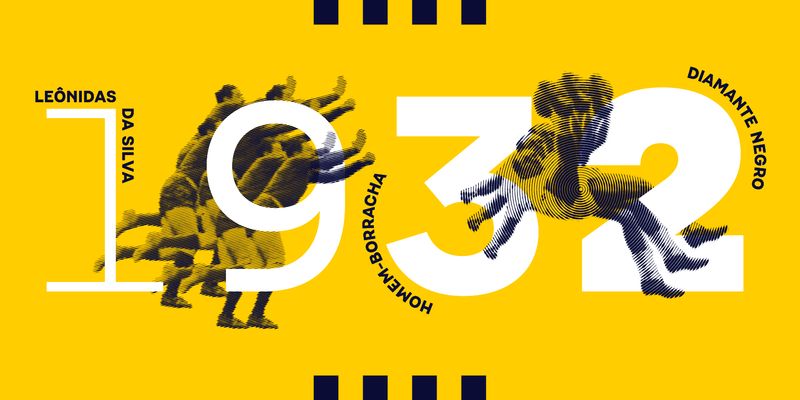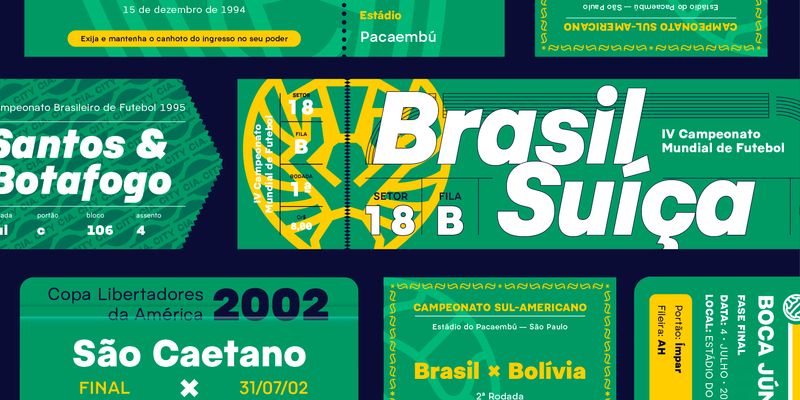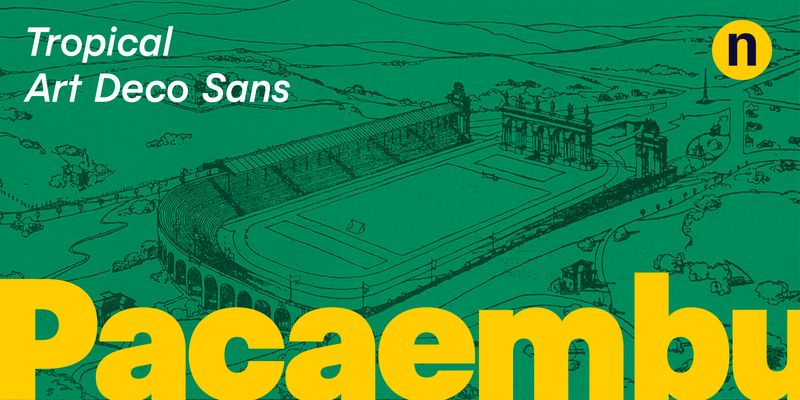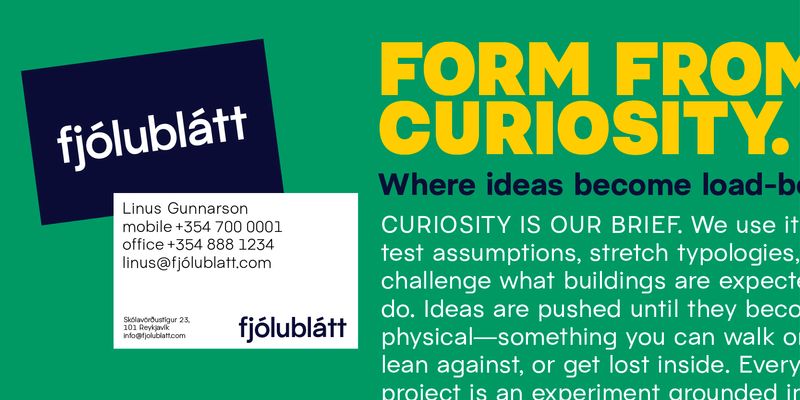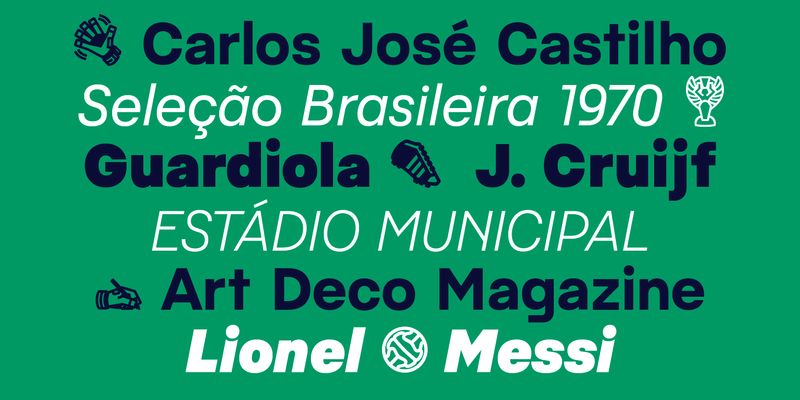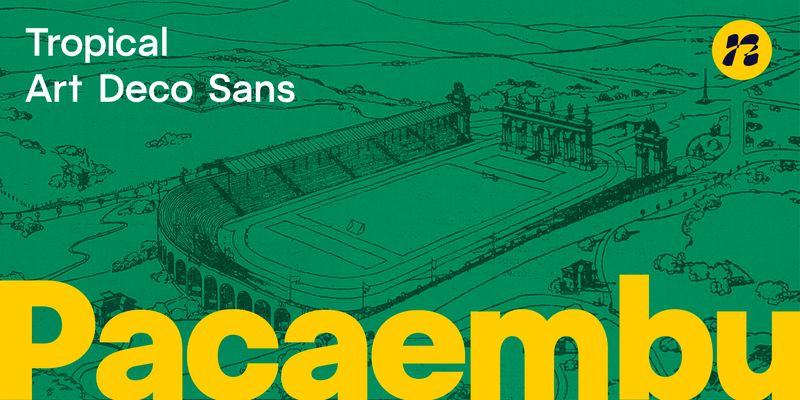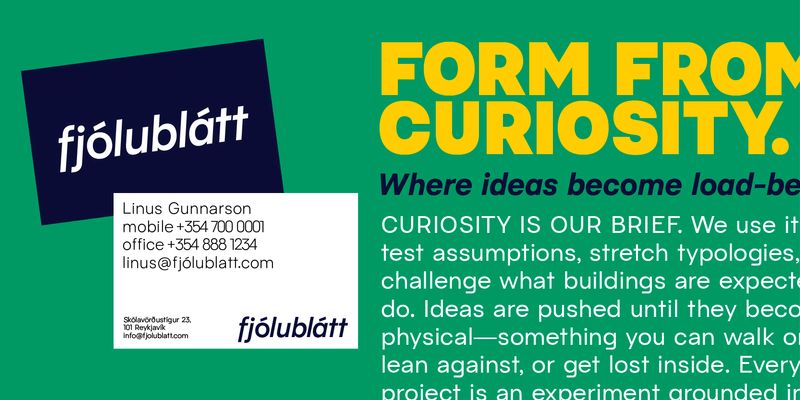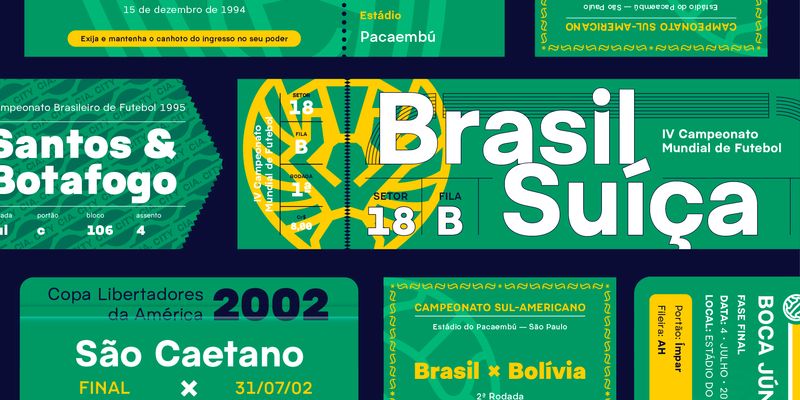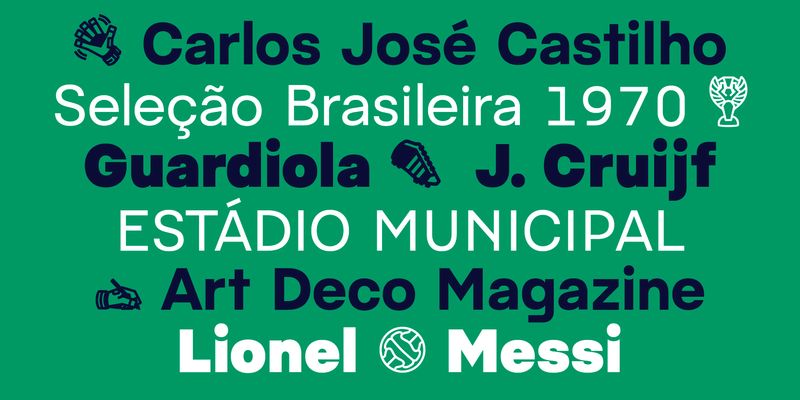
Pacaembu is a sans serif typeface that finds its roots in Brazilian football. This seven weight family began as a study of the stone lettering found in the Paulo Machado de Carvalho Municipal Stadium, coloquially called the Estádio Pacaembu, a real gem of the Art-Deco style inaugurated in 1940.
These art-deco letters, like football itself, were brought to Brazil by Europeans and out there in the tropics found a totally unique personality.
Pacaembu is a celebration of Brazilian Football, its unique flavours, moves, sights and colors which have been delighting fans for generations.